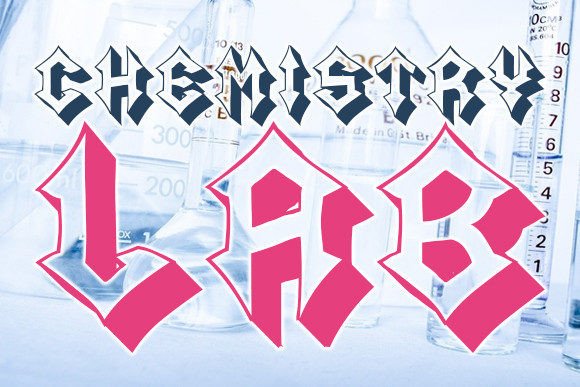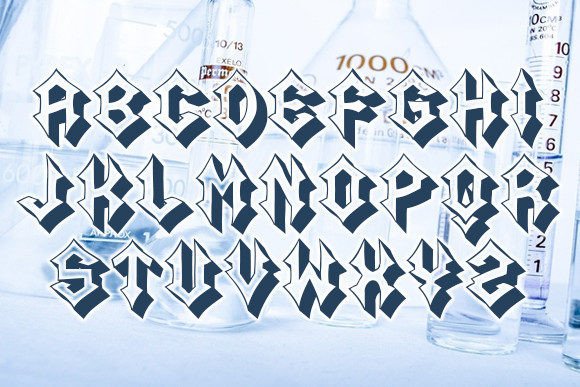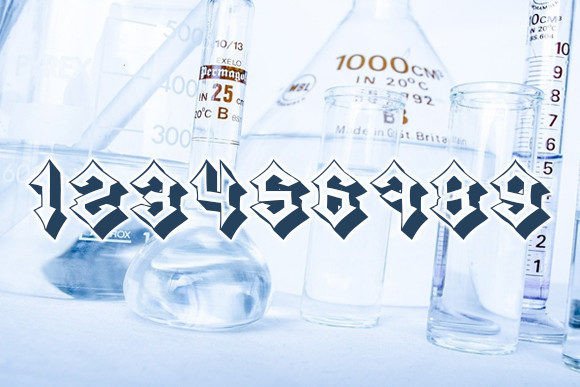
The Elegant Gothic Charm of Acid Font
I’ll never forget the design project that led me to discover the Acid font. I was working on a poster for a gothic-inspired music festival, and I was struggling to find the perfect typeface that captured the essence of the event. The client wanted something elegant, yet edgy, and I was on a tight deadline. That’s when I stumbled upon Acid font, and it instantly became my go-to choice.
A Personal Review of Acid Font
So, what makes Acid font so special? Here are a few things I love about it:
- ✨ Elegant gothic design with sharp corners and slight angles
- ✅ Highly versatile and perfect for various design projects, from posters to postcards
- 💡 Supports OpenType features, allowing for creative experimentation
Of course, no font is perfect, and Acid has a few quirks:
- 🤔 Some users may find the font a bit limited in terms of variations and weights
- ⚠️ Be mindful of legibility when using the font at smaller sizes
The Backstory of Acid Font
Acid font was designed with the intention of creating a unique and captivating gothic typeface. The designer aimed to craft a font that exudes elegance and sophistication while still maintaining a touch of edginess. The result is a versatile font that can be used for a wide range of design projects.
| What type of designs is Acid font best suited for? | Acid font is perfect for designs that require an elegant and gothic touch, such as posters, flyers, and postcards. |
| Is Acid font suitable for body text? | While Acid font can be used for body text, it’s recommended to use it at larger sizes due to its ornate design. |
| Is Acid font available in different weights and variations? | Acid font may have limited variations and weights, but it still offers a range of OpenType features for creative experimentation. |